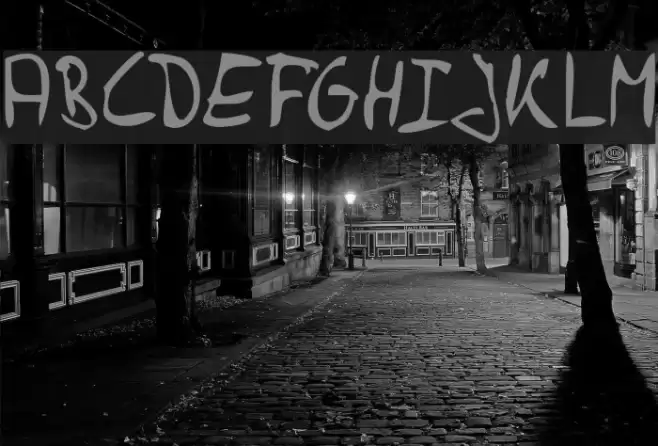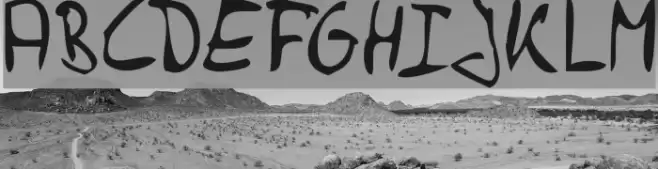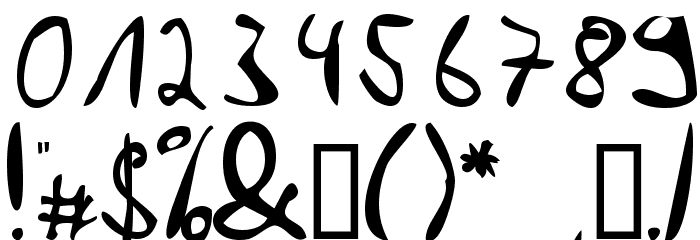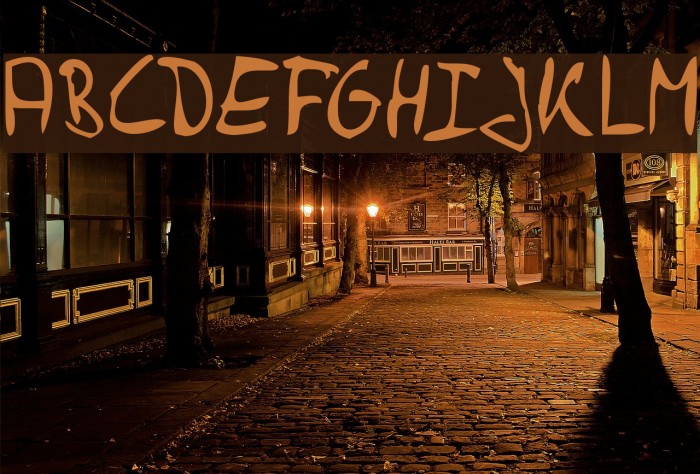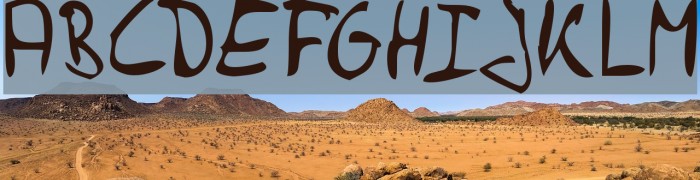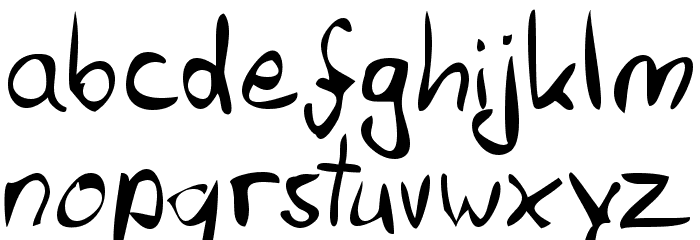
Felix Hand Font
Felix Hand Description
This font features a playful and dynamic handwritten style, characterized by its bold and expressive strokes. The letters have an irregular and organic form, giving it a lively and informal appearance. The uppercase and lowercase letters maintain a consistent flow, with some characters exhibiting unique and quirky shapes that add personality. The numerals and special characters follow the same energetic style, making the font suitable for creative and informal applications. Its overall design is reminiscent of casual handwriting, making it approachable and friendly.
A bold, playful handwritten font with dynamic and expressive strokes from Handwritten fonts.
- Proposed Projects: Ideal for greeting cards, children's books, playful branding, and creative posters.
- Overall Style: Playful, Informal
- Use Case: Headlines, Logos, Informal Text